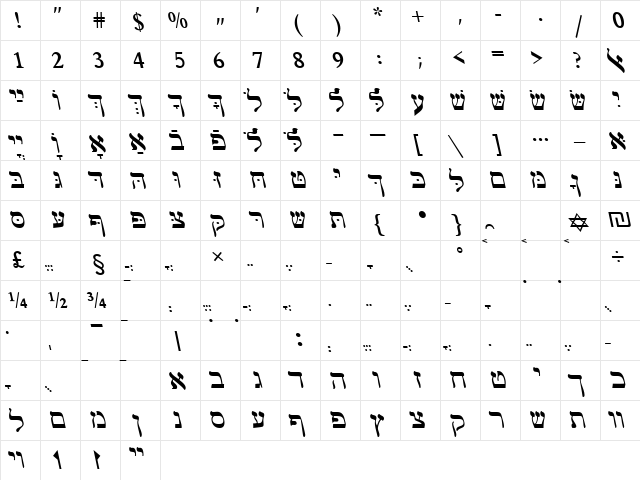
HebrewJoshuaSSK Italic
Design Context for HebrewJoshuaSSK Typeface
HebrewJoshuaSSK offers clean, dependable letterforms without strong stylistic allegiance, making it a practical choice for designers who need flexibility. Its italic angle brings a sense of urgency and motion to the letterforms.
Pro Tip: Use HebrewJoshuaSSK for emphasis, pull quotes, and subheadings where its slanted energy can add rhythm to the layout.